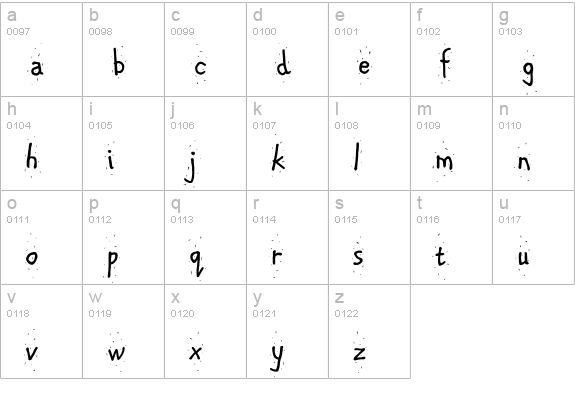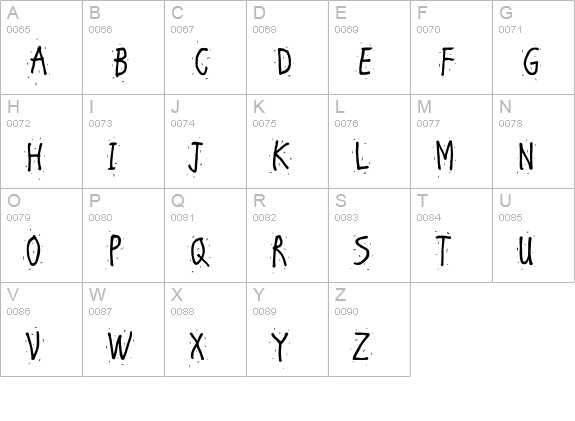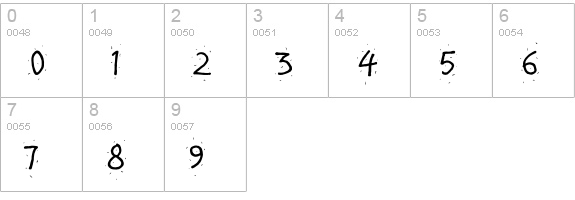
Chipper Std Font Details
Chipper Std is a playful and charming font that exudes a casual and friendly vibe. With its rounded edges and whimsical curves, this font is perfect for adding a touch of fun to your designs. Whether you're working on a greeting card, poster, or website, Chipper Std will bring a sense of cheerfulness to your project. The best part? Chipper Std is available for free download at FontsMarket.com. Simply head over to the website and add this delightful font to your collection without having to spend a penny. Don't miss out on the opportunity to enhance your designs with the lighthearted charm of Chipper Std!